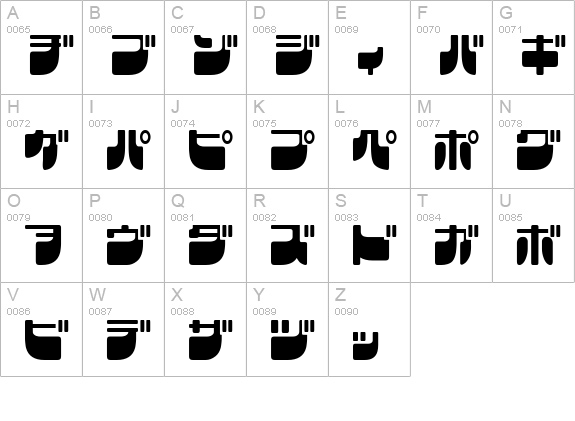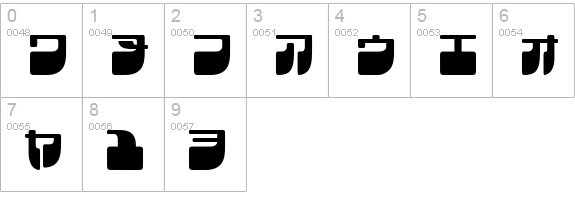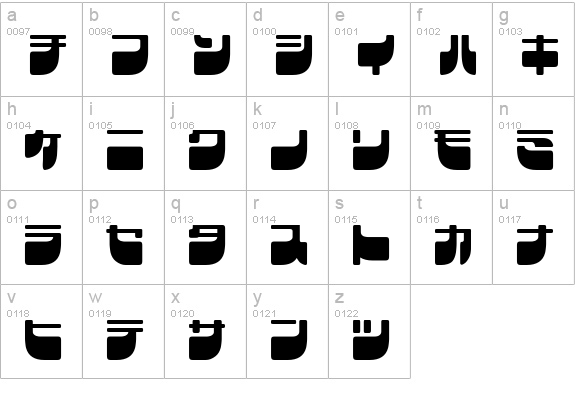
Frigate Katakana Font Details
Frigate Katakana font is a sleek and modern typeface that combines traditional Japanese characters with a contemporary design aesthetic. This versatile font is perfect for adding a touch of sophistication to your projects, whether you're designing a website, creating a logo, or crafting a poster. With its clean lines and sharp edges, Frigate Katakana font exudes a sense of elegance and professionalism. The distinctive characters make a bold statement while still remaining highly legible, making it an excellent choice for both display and text purposes. Best of all, Frigate Katakana font is available for free download at FontsMarket.com. This means you can easily access this high-quality typeface and use it in your projects without any cost. Don't miss out on this fantastic opportunity to enhance your designs with the stylish Frigate Katakana font!